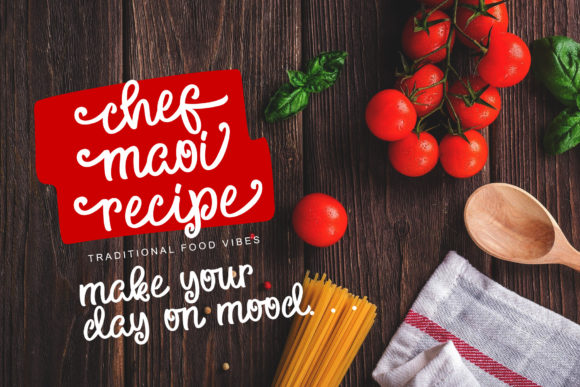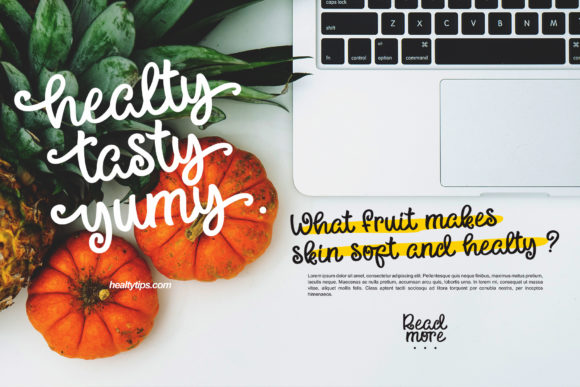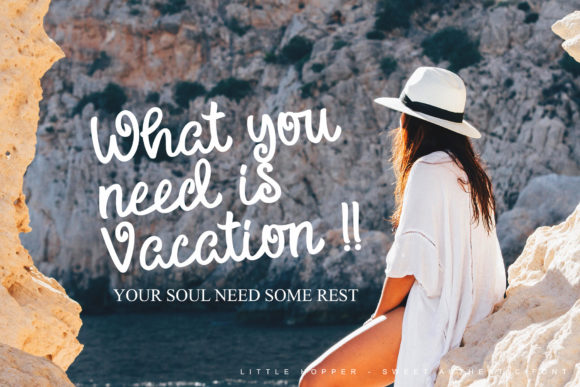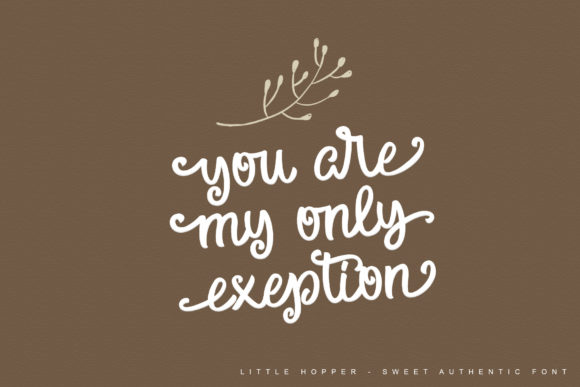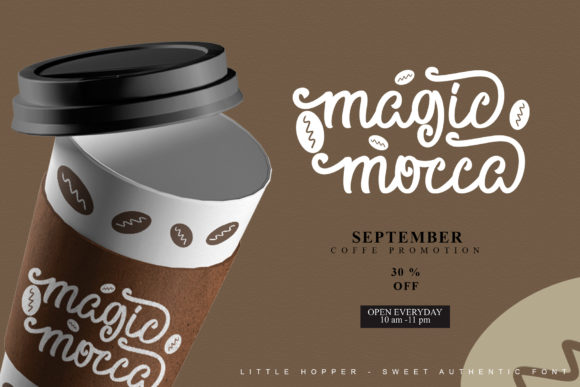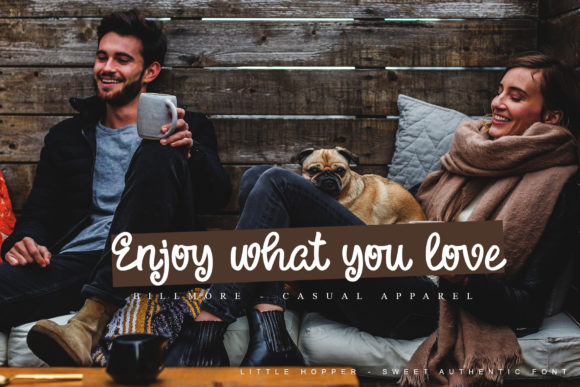
Introduction to Little Hopper Font
As a designer, have you ever found yourself stuck in a creative rut, desperately searching for that perfect font to bring your project to life? I know I have. But then, like a breath of fresh air, you stumble upon a font that’s just quirky enough to make your project stand out from the crowd. For me, that font was the Little Hopper Font, a charming handwritten font that’s perfect for all your creative endeavors.
Whether you’re designing a logo, creating social media graphics, or working on a crafty DIY project, the Little Hopper Font is a valuable resource that’s sure to elevate your design game. With its clean and high-quality design, this font is a must-have for any designer looking to add a touch of whimsy to their projects.
Key Features of Little Hopper Font
- Unique, playful font style featuring a transparent background, making it perfect for adding a whimsical touch to your designs.
- Designed with a modern aesthetic, making it suitable for a variety of creative projects, from digital art to print materials.
- Available in a single weight, perfect for adding a consistent look to your designs without the need for multiple font weights.
Honest Review: Little Hopper Font
I recently stumbled upon the Little Hopper Font and I must say it’s been a game-changer for my design projects. The high quality and unique design make it an excellent addition to any design resource collection.
What works well about the Little Hopper Font is its versatility. It comes with a transparent background, making it easy to integrate into any creative project. The font also includes a wide range of characters, including numerals and punctuation marks. This makes it perfect for headings, titles, and even body text.
Here are some of the key features that I love about the Little Hopper Font:
- ✨ High-quality design with a unique and playful feel
- ✨ Transparent background for easy integration into any design
- ✨ Wide range of characters, including numerals and punctuation marks
- ✨ Perfect for headings, titles, and body text
Overall, I’m thoroughly impressed with the Little Hopper Font. It’s a high-quality design resource that’s perfect for any creative project. While it may not be free, the unique design and versatility make it well worth the investment.
Tips for Getting the Most Out of Little Hopper Font
To get the most out of Little Hopper Font, use it on a transparent background to create a clean and modern design. You can also experiment with different font sizes, colors, and styles to create a unique and eye-catching design. Additionally, use Little Hopper Font in conjunction with other design elements, such as images and shapes, to create a creative project that stands out.
Common Use Cases for Little Hopper Font
Little Hopper Font is a versatile design resource that can be used in a variety of creative projects, including logos, business cards, and social media graphics. It is also a great choice for designers who want to create a modern and clean design with a transparent background.